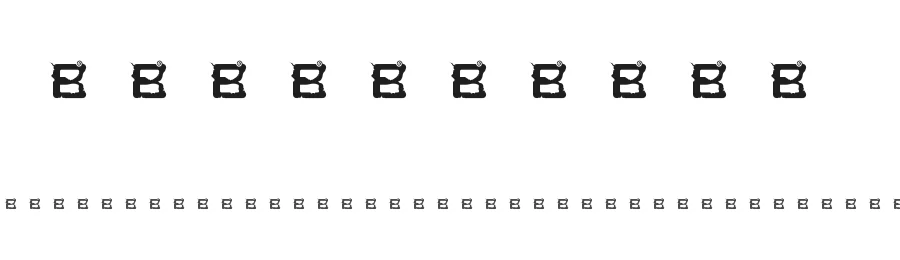
About 99% Ornament Font
99% Ornament is a decorative font designed by Habib Shaikh that brings elaborate ornamentation to projects seeking visual interest and distinctive character. With 236 glyphs spanning over 209 languages with Latin-based support, this font handles both English and international typography needs without limitation. The Regular weight provides consistent visual presence without requiring multiple file variants, making implementation straightforward across all major design applications and craft software platforms.
This font excels in contexts where decorative flair genuinely matters: wedding invitation suites, vintage poster compositions, book cover embellishments, and social media graphics for craft or lifestyle brands. It functions as a display element rather than body text, allowing designers to use it strategically for maximum visual impact on Etsy shop banners, handmade product labels, printed merchandise designs, and greeting cards. When paired with clean supporting typefaces, the ornamental style creates striking visual contrast that naturally draws attention to key design moments and focal points.
99% Ornament Specifications
99% Ornament Font is a decorative font that shines as a display or heading face. Pair it with a clean sans-serif or serif font for body text β the contrast creates a clear hierarchy while the two styles stay balanced and easy to read.
99% Ornament Font